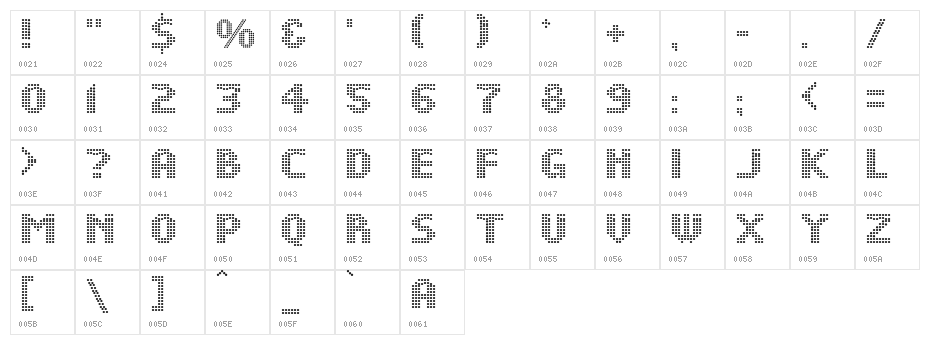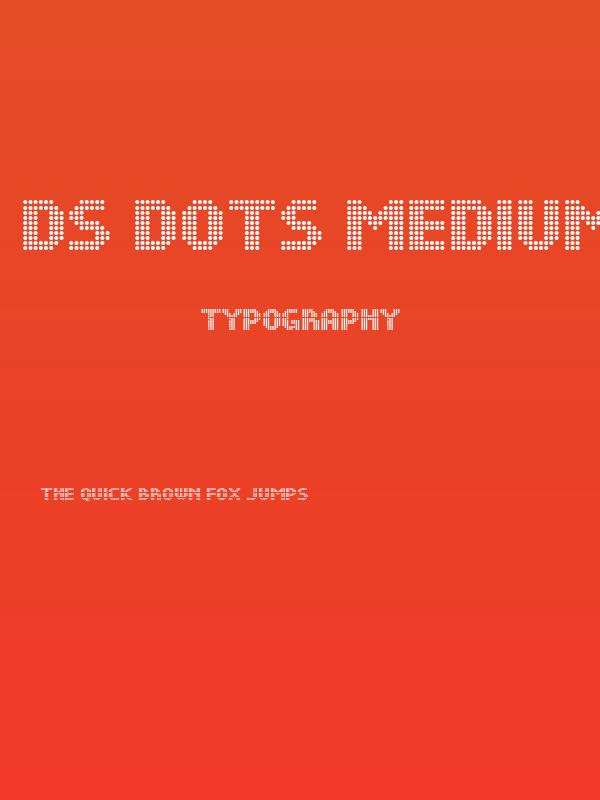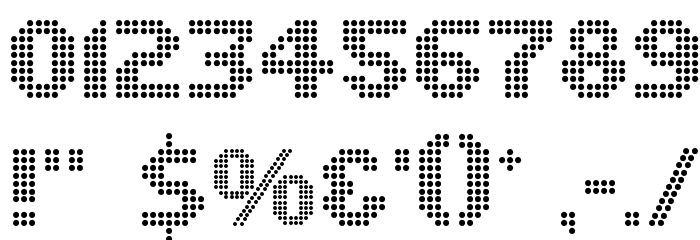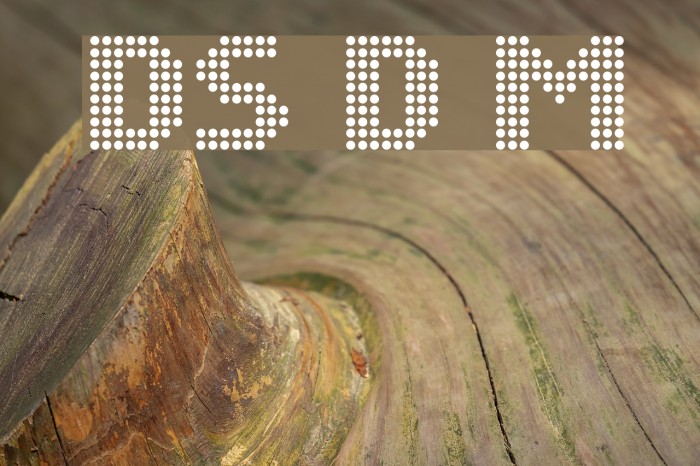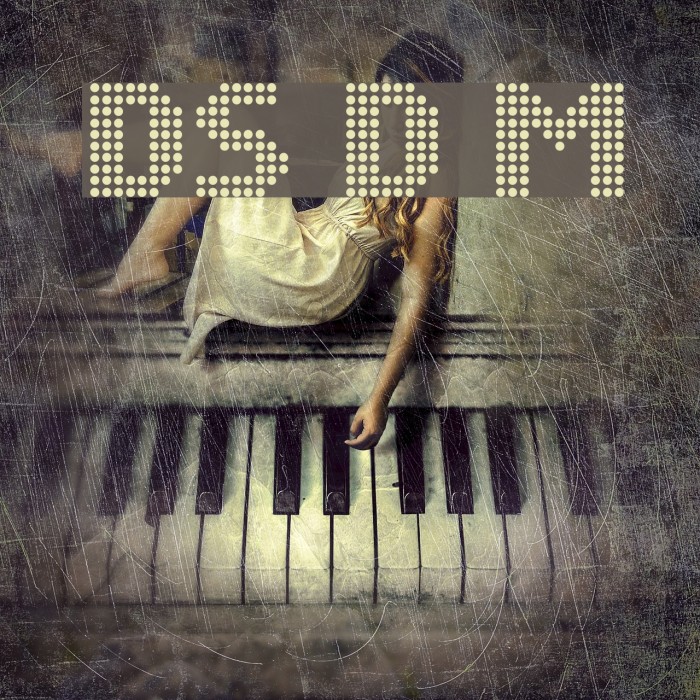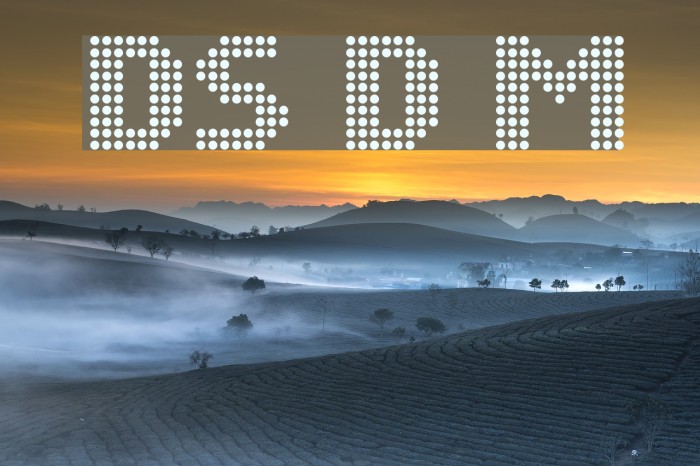
DS Dots Medium Font
DS Dots Medium Description
This font features a unique dot matrix style, where each character is composed of a grid of evenly spaced dots. The design is geometric and structured, creating a digital or retro-tech aesthetic. The uppercase and lowercase letters maintain a consistent height and width, providing a uniform appearance. Numbers and special characters follow the same dot pattern, ensuring cohesive visual harmony across all glyphs. This style evokes a sense of nostalgia, reminiscent of old LED displays or early digital screens, making it ideal for projects that aim to capture a vintage or tech-inspired look.
| Overall Style | Retro, Tech-inspired |
| Use Case | Headlines, Logos, Digital displays |
| Proposed Projects | Ideal for digital displays, retro-themed designs, tech-inspired branding, and creative posters. |